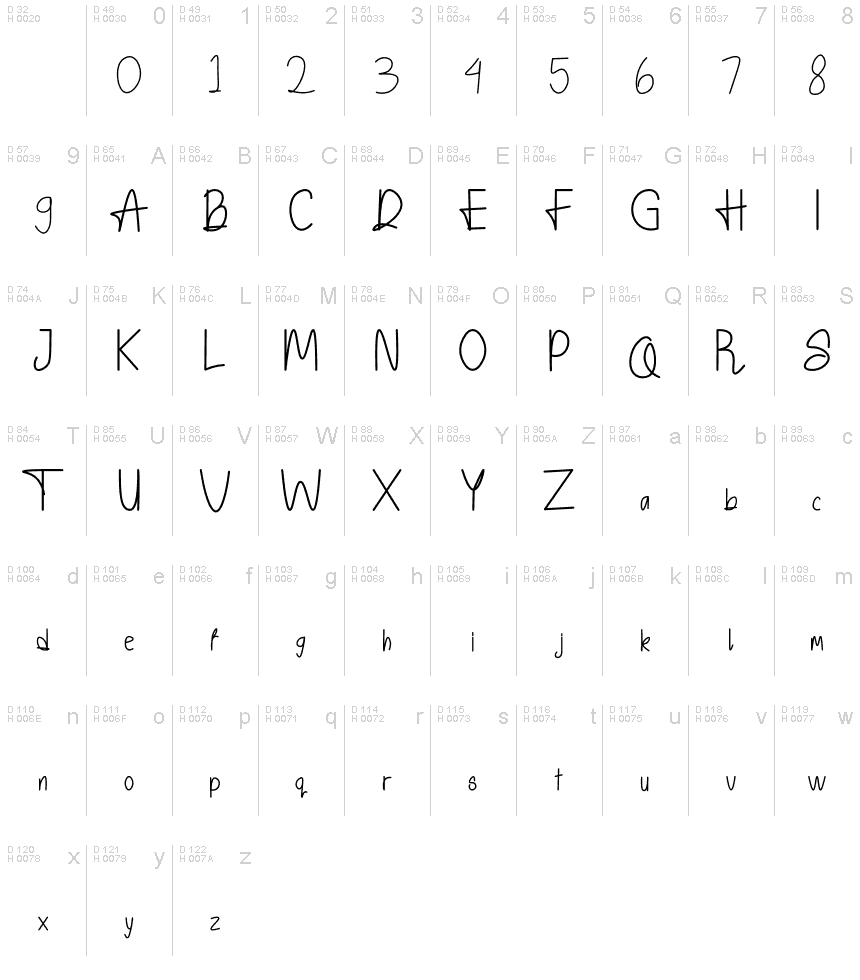
Belfica
Belfica, a captivating handwritten font by Abahe, adds an elegant touch to any project. With its light weight and graceful strokes, this font is perfect for creating romantic wedding invitations or heartfelt love letters. Its flowing curves also make it suitable for crafting delicate logo designs or whimsical children's book illustrations. Belfica's unique charm and organic feel bring a sense of authenticity to any creative endeavor. Whether you're designing dreamy posters, sophisticated branding materials, or even inspiring quotes for social media, Belfica will surely leave a lasting impression on your audience.